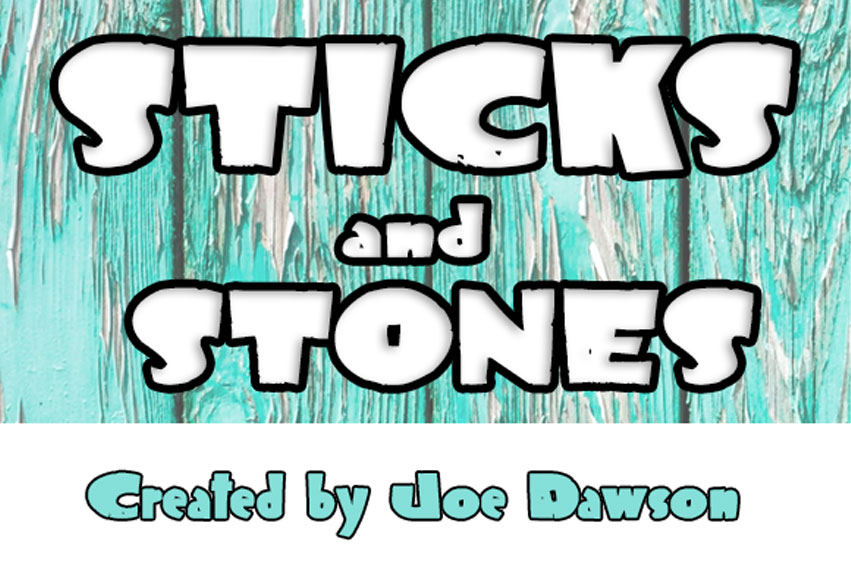
Sticks and Stones Display Font
Sticks and Stones Display Font is a chunky, playful, hand-drawn font.
Perfect for your friendly, fun projects and themes.